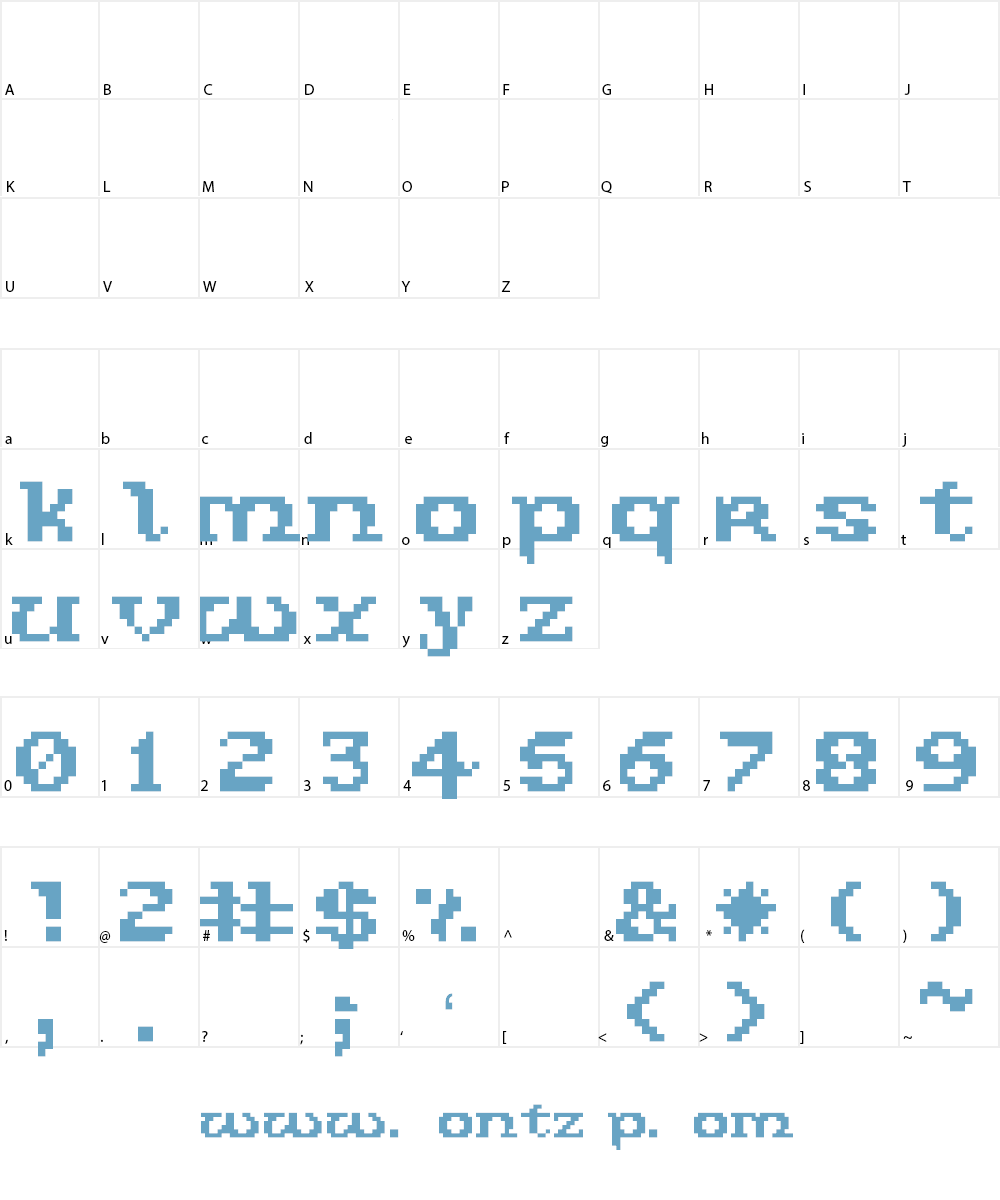
Celtic-theme pixel font created to replicate the brush strokes used in medieval/
calligraphic writing. 3 fonts are included in the set: Celtic-Bit which is traditional, Celtic-Bit Thin which is simply the same font with a more traditional pixel-font look. The last font is Celtic-Bitty which is a smaller, condensed version of the font--the main difference being that some
letters have been replaced with more easily-read modern versions of the renditions.